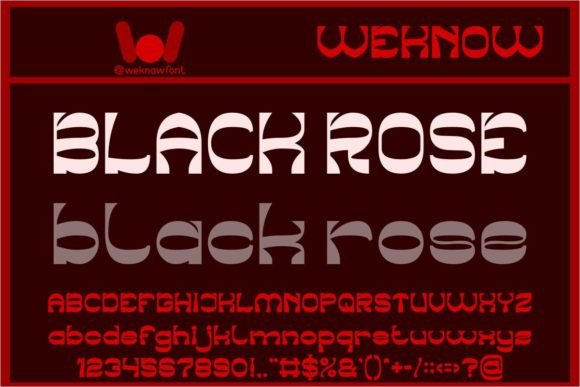
Unveiling the Elegance of Black Rose Font
Have you ever been in the middle of a design project, and suddenly, it all comes down to finding that one perfect font? I recall a particularly frustrating experience while working on a logo design for a fashion brand. The client wanted something elegant, yet bold; sophisticated, yet stylish. After hours of scouring through font libraries, I stumbled upon the Black Rose font. It was love at first sight! ✨
A Personal Review of Black Rose Font
- ✅ Exquisite curves and contours that scream elegance
- ✨ Versatility in use, from logos and headlines to apparel and editorial designs
- 💥 Perfect for creating a bold brand identity or adding a touch of humor to comics and cartoons
- 🎨 Excellent for both digital and print designs, including websites, social media graphics, and more
While Black Rose Font is incredibly versatile and stunning, there are a few minor considerations to keep in mind:
- ⚠️ It may not be the best choice for body text due to its display font nature; it’s primarily designed to make a statement.
- 🤔 Some of the more intricate details might not render well at very small sizes.
The Inspiration Behind Black Rose Font
The Black Rose Font was inspired by the classic elegance of timeless roses and the modern sophistication of contemporary design. Its creator aimed to craft a font that embodies both finesse and diversity, making it suitable for a wide range of applications. From fashion to editorial, and from digital to print, Black Rose Font is designed to leave a lasting impression.
Q: Is Black Rose Font suitable for body text?
A: While Black Rose Font is stunning, it’s primarily designed as a display font. It may not be the best choice for body text due to its intricate details and elegant nature.
Q: Does Black Rose Font support OpenType features?
A: Yes, Black Rose Font supports OpenType features, including glyphs and stylistic alternates. This allows designers to experiment with different variations and add more personality to their text.